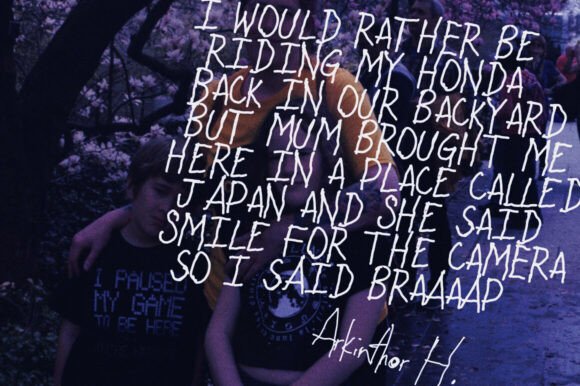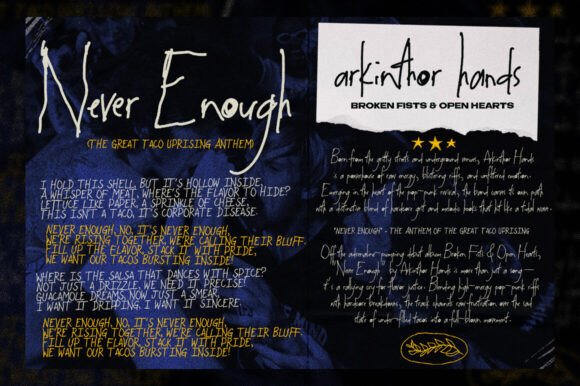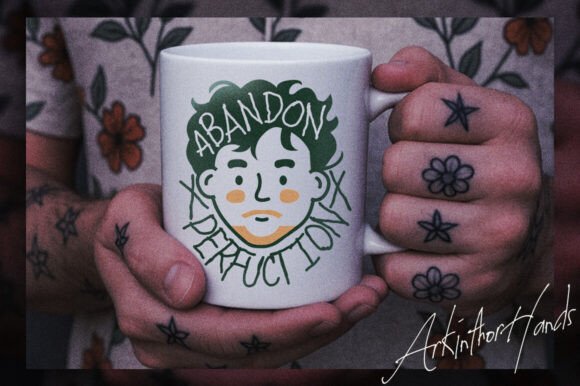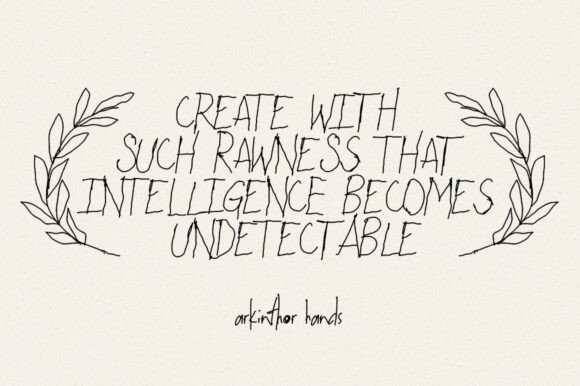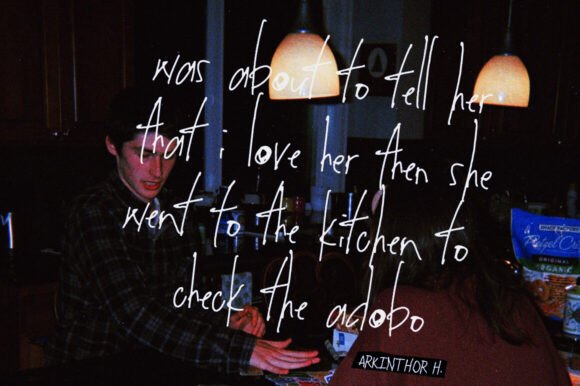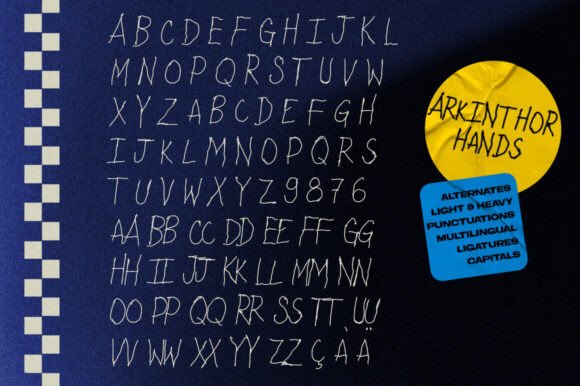
Rediscover the Emotional Connection in Your Designs
Have you ever stared at a blank canvas, waiting for inspiration to strike? You know, that moment when the creative juices start flowing, and the ideas just start pouring in? That’s exactly what happened when I stumbled upon the Arkinthor Hands Font. It’s a game-changer for designers who want to add a personal touch to their work.
Arkinthor Hands Font is a digitally-made handwriting font that’s raw, emotive, and full of character. Its carefree style may seem nonsensical at first, but trust me, it’s subtly attractive. By incorporating this font into your designs, you’ll be able to tap into the emotional energy of the good old days, when branding held a deeper connection with the audience.
This font is a valuable addition to any designer’s toolkit, offering a unique way to express yourself and connect with your audience on a deeper level.
Arkinthor Hands Font Key Features
- Unique Characteristics: The Arkinthor Hands Font features a unique, handwritten style with intricate details and flourishes, making it ideal for creative and artistic applications.
Arkinthor Hands Font Review
I recently had the chance to work with the Arkinthor Hands Font, and overall, I’m quite impressed. Here’s my honest review.
- Unique Design: The font has a quirky, handwritten feel that sets it apart from more traditional fonts.
- Expressive Characters: Each letter is carefully crafted to convey a sense of movement and energy.
- Good Legibility: Despite its cursive nature, the font is surprisingly easy to read, even at smaller sizes.
- Limited Font Families: As a single font family, Arkinthor Hands might not be suitable for projects requiring multiple font styles.
- Not Ideal for Large Text: While the font is readable, it’s not the best choice for large blocks of text, as it can become overwhelming.
- Requires Careful Placement: Due to its expressive nature, the font requires careful placement to avoid visual clutter.
Overall, I think the Arkinthor Hands Font is a great addition to any designer’s toolkit. Its unique design and expressive characters make it perfect for projects that need a touch of personality. Just be mindful of its limitations, and you’ll be golden.
For best results, use the font for headings and titles to create a visually appealing design.
For best results, use the font for titles, headings, and other emphasis.
The Arkinthor Hands Font is ideal for:
1. Designing creative and unique titles and headings.
2. Creating hand-drawn or handwritten-style designs.
3. Adding a personal touch to business cards, brochures, and other marketing materials.